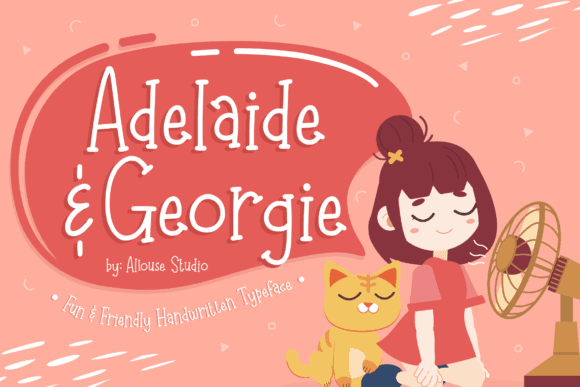
Adelaide and Georgie Font for Crafting, Logos and Print Projects
This is a handwritten font duo featuring two harmonized typefaces designed to work beautifully together in crafting, print, and branding projects. Adelaide and Georgie balance casual brush strokes with elegant simplicity for versatile text layouts. These typefaces are perfect for adding a personal touch to invitations, posters, and social media graphics. In addition to their unique charm, the ardilla font for creative projects brings an extra layer of sophistication, making it an ideal choice for both playful and professional designs. Whether you're crafting a brand identity or designing seasonal promotional materials, these fonts ensure that your message stands out with style.
As a font entity, this pair supports both headline and secondary text functions, ideal for use in product packaging, logos, invitations, and handmade crafts. The duo structure offers contrast and coordination, giving creators instant visual hierarchy in their designs.
Whether you're designing printable quotes, branding a product, or making custom signage, this font duo brings personality and cohesiveness to your typography.
- Crafters and hand-lettering enthusiasts
- Brand designers needing font pairings
- Print-on-demand sellers and Etsy shops
- Event planners and stationers
- DIYers creating paper and vinyl products
- Custom product packaging and logos
- Printable art, cards, and signage
- Merchandise tags and labels
- Vinyl decals for mugs and home décor
- Branded stationery and marketing materials
- Two fonts included in the family
- Stylish and cohesive handwritten duo
- Perfect for logos, packaging, and printables
- Balanced contrast for headlines and subtext
- Versatile for personal and professional use
A: You'll receive two complementary fonts designed to work as a cohesive duo in branding and craft projects.
A: Yes, they are built to complement each other in weight, style, and spacing for cohesive layouts.